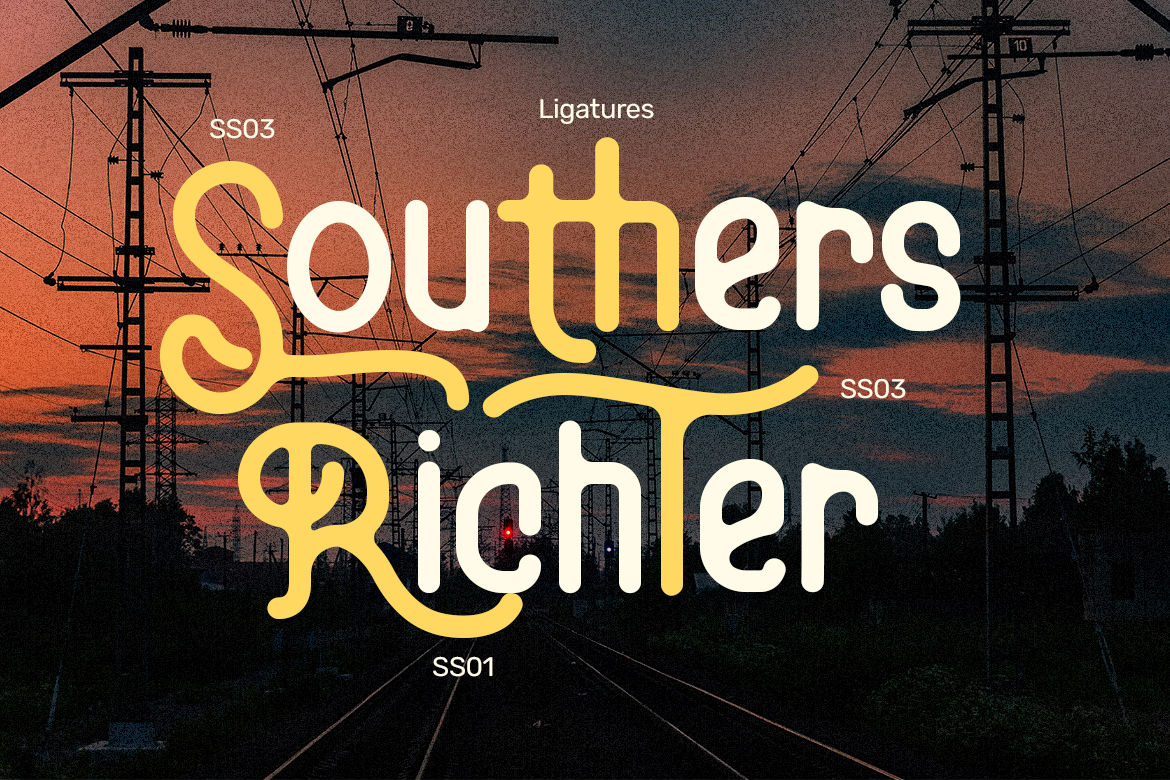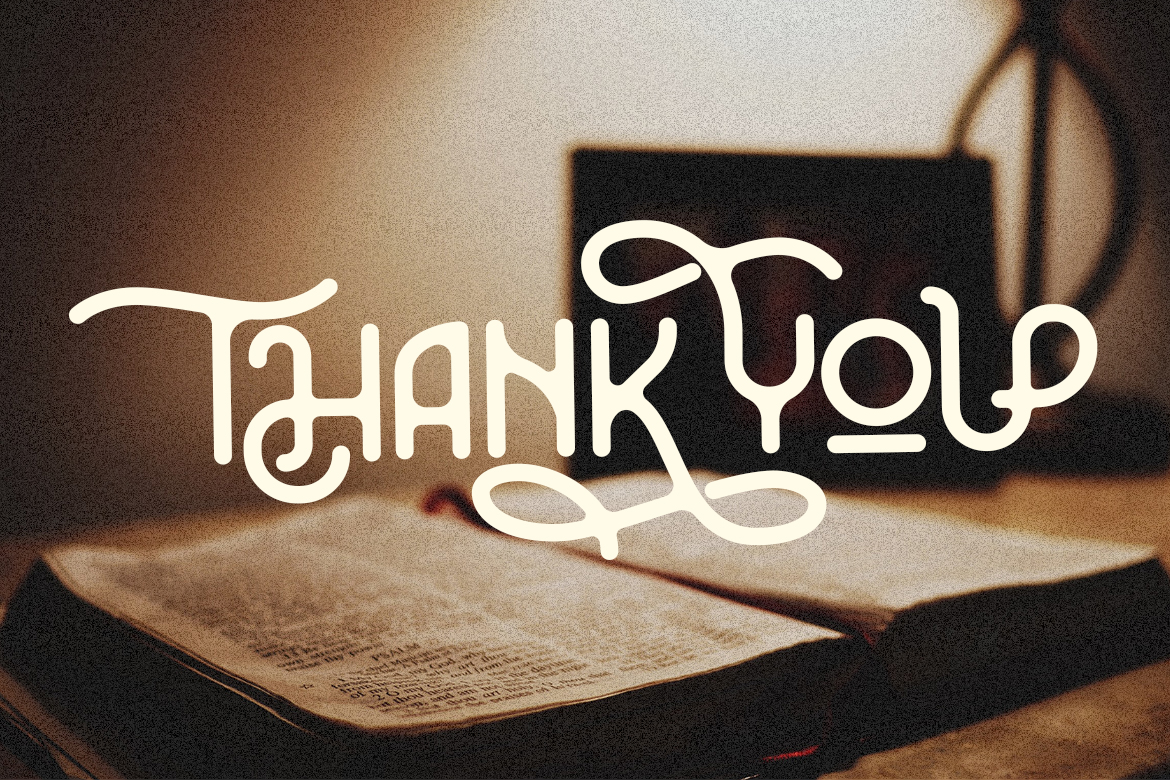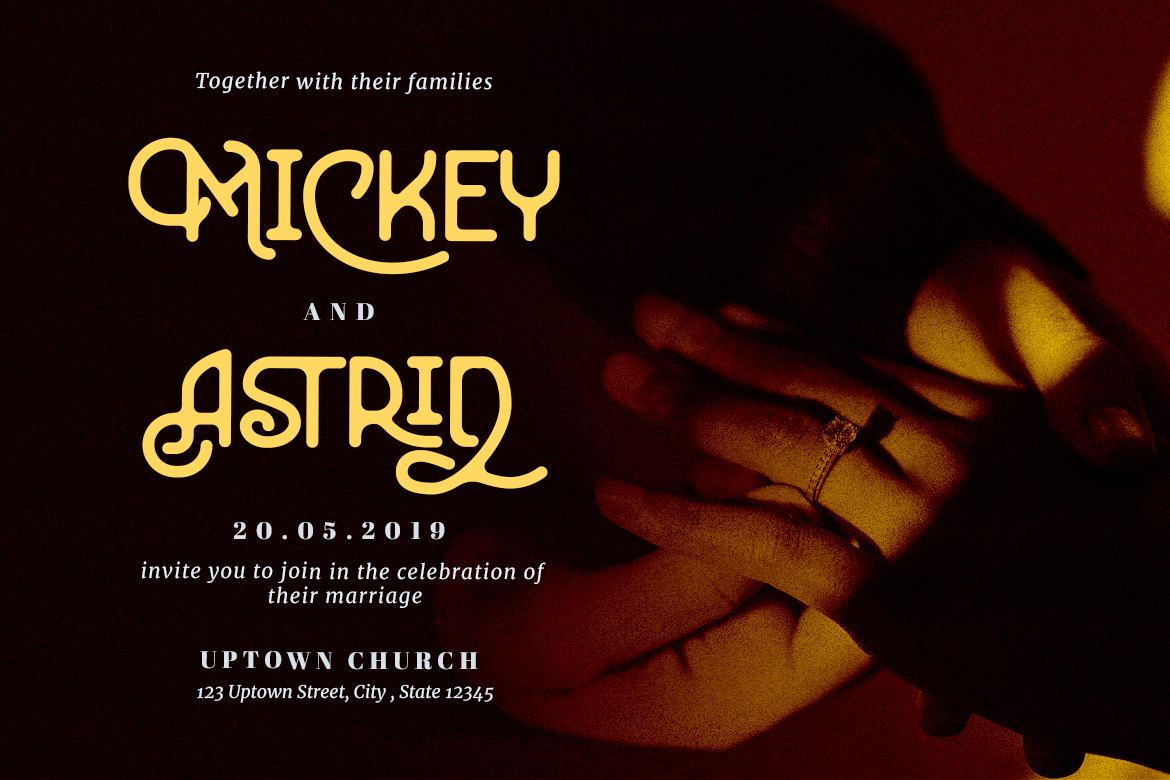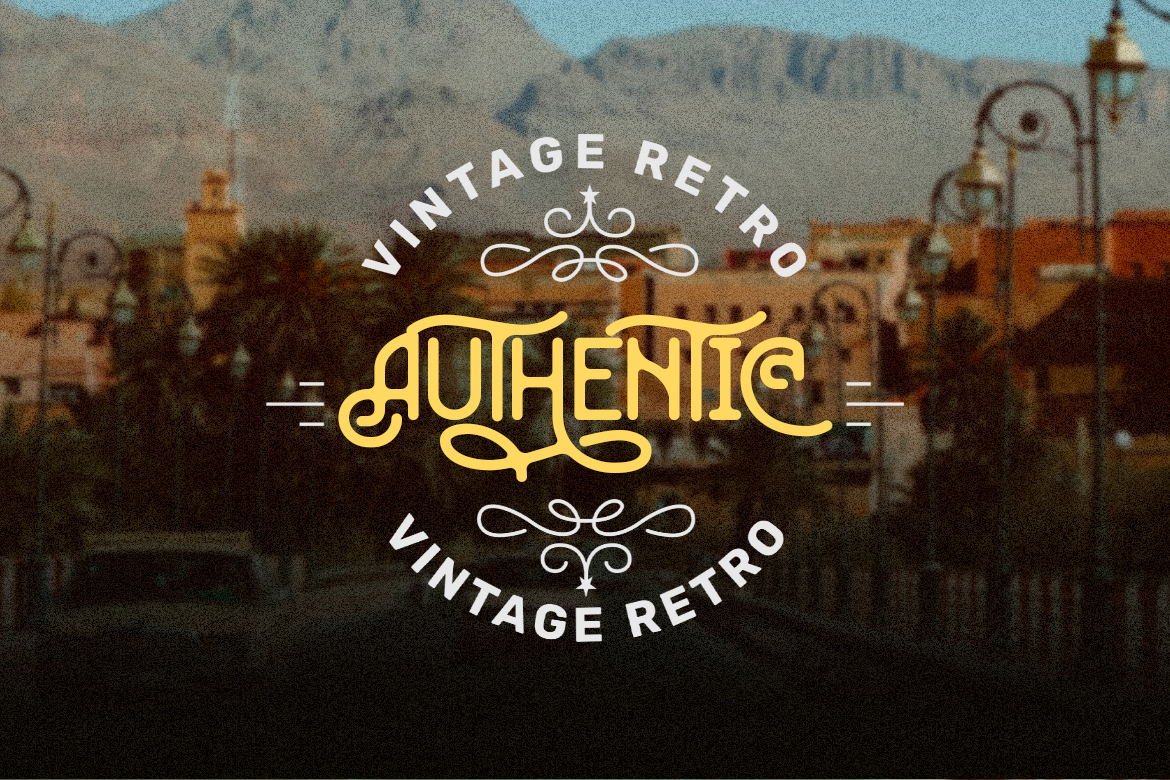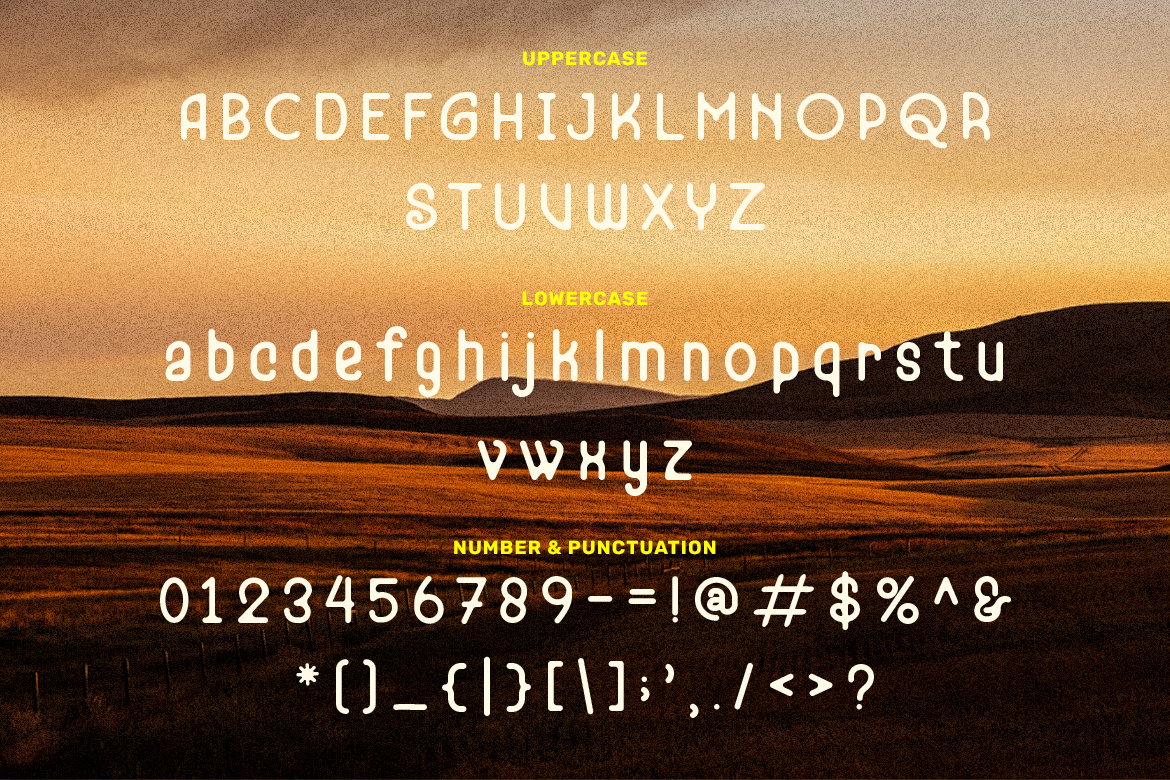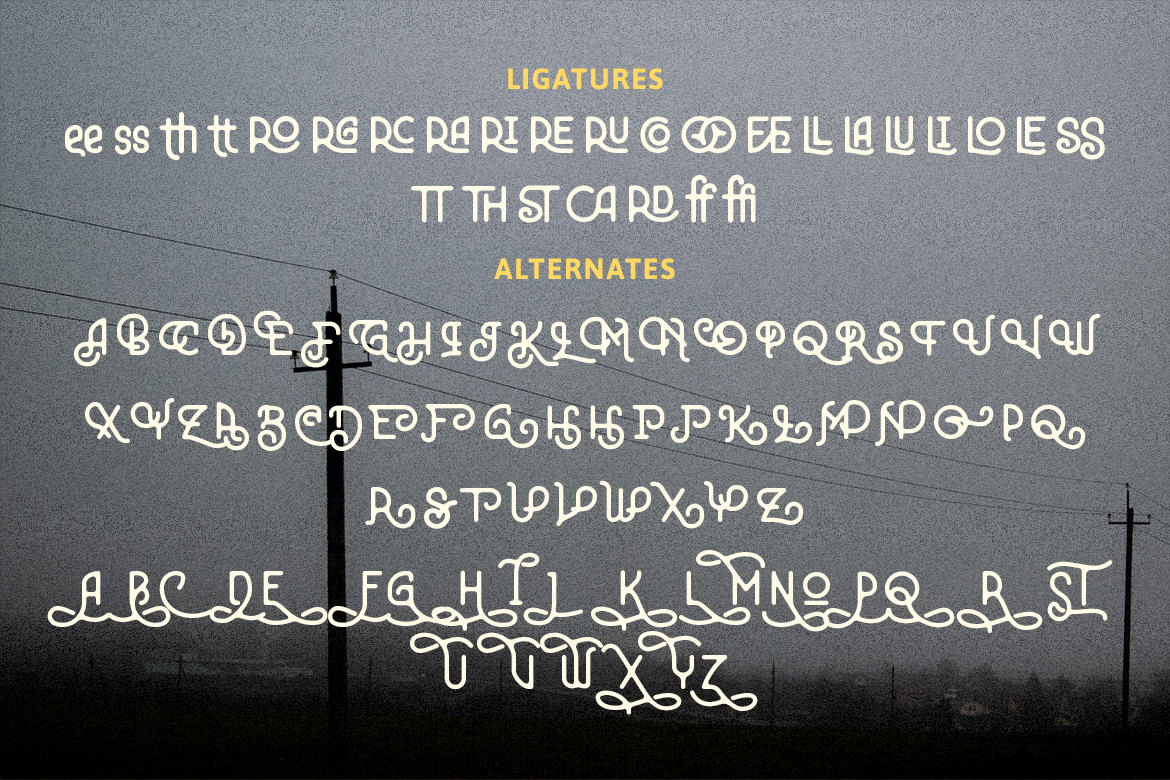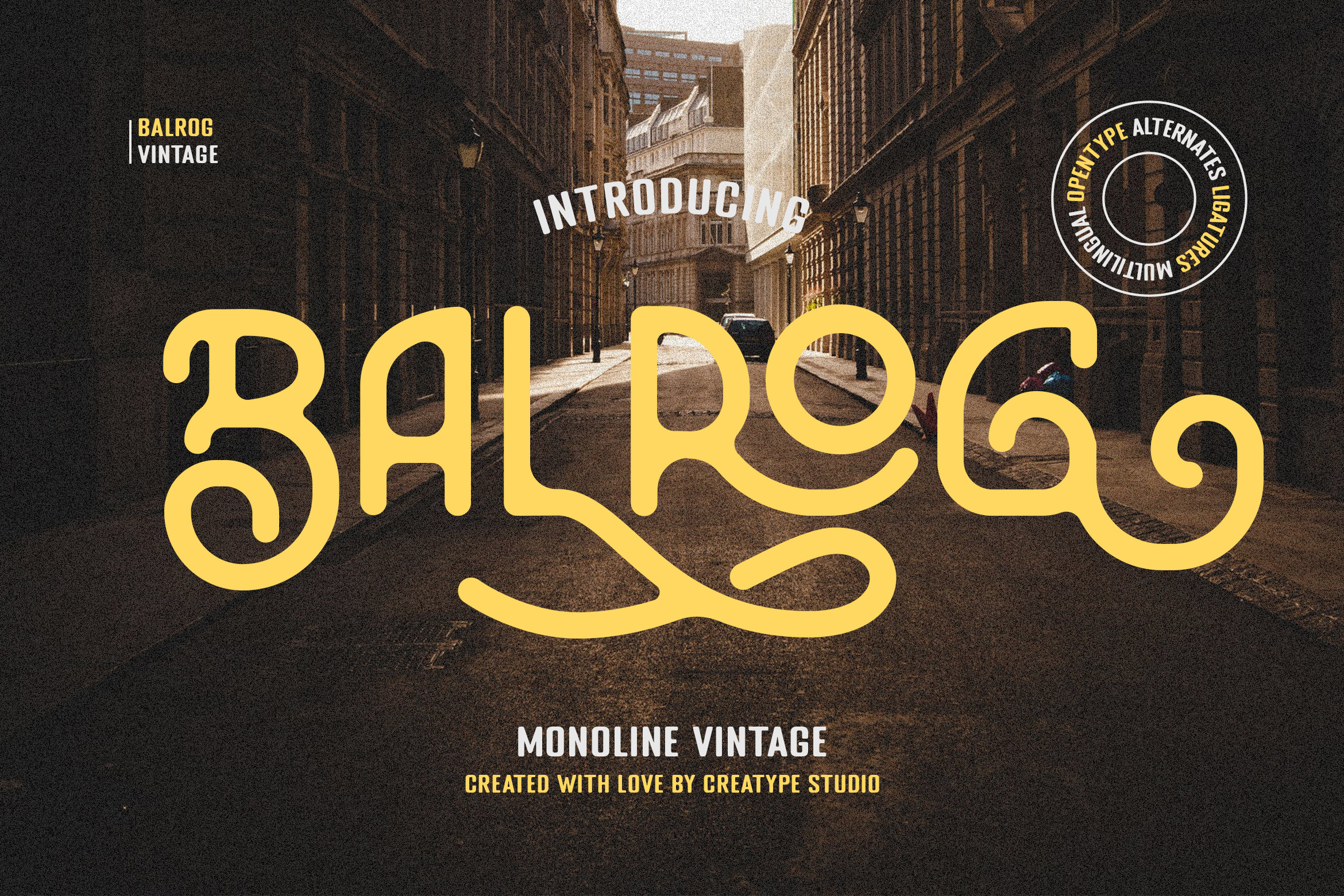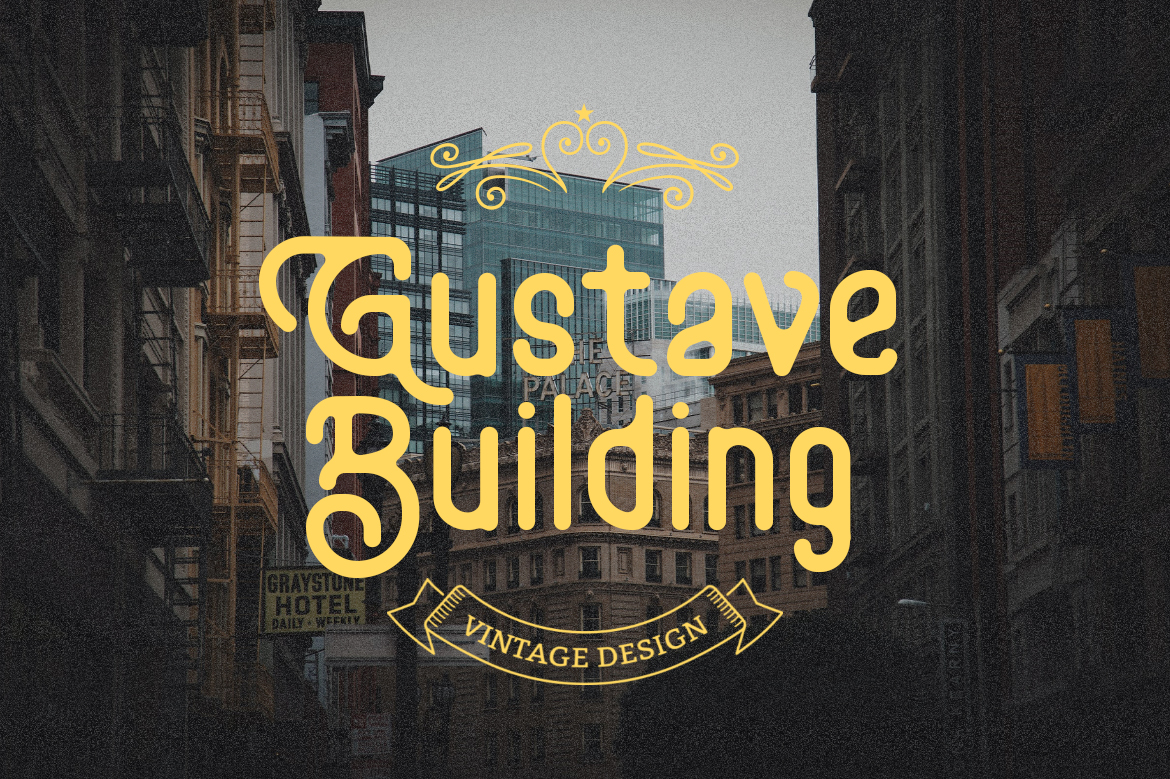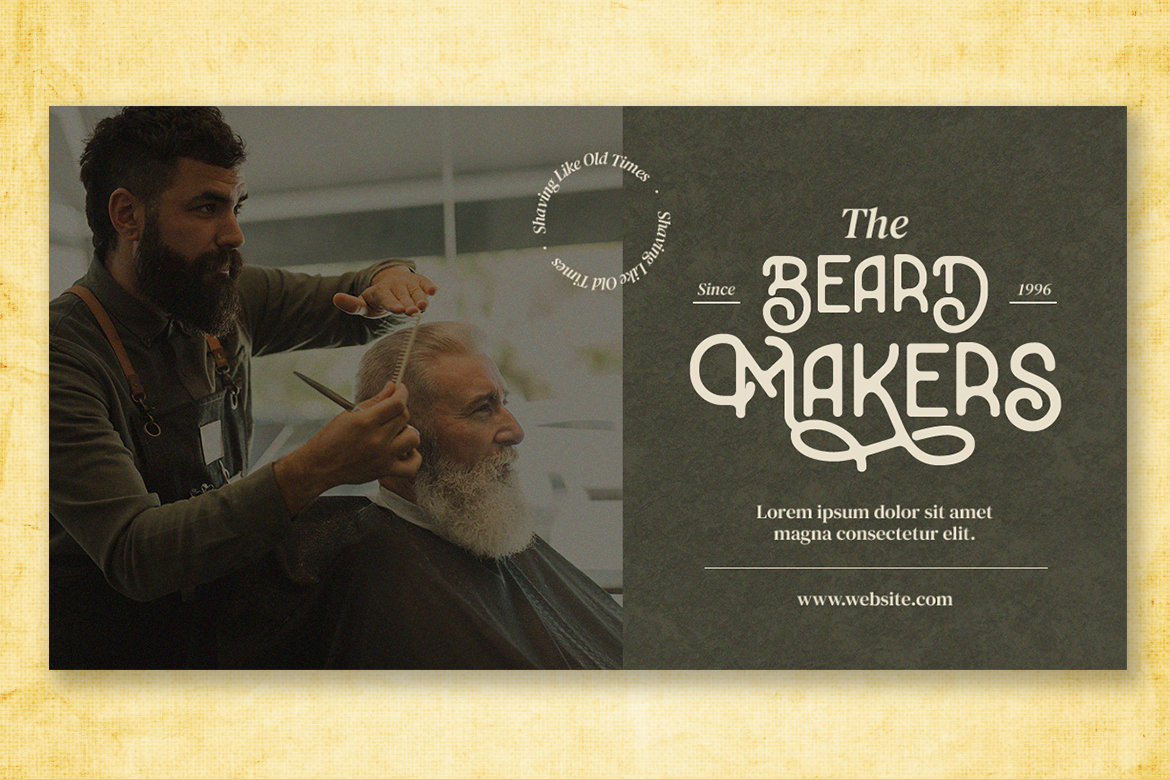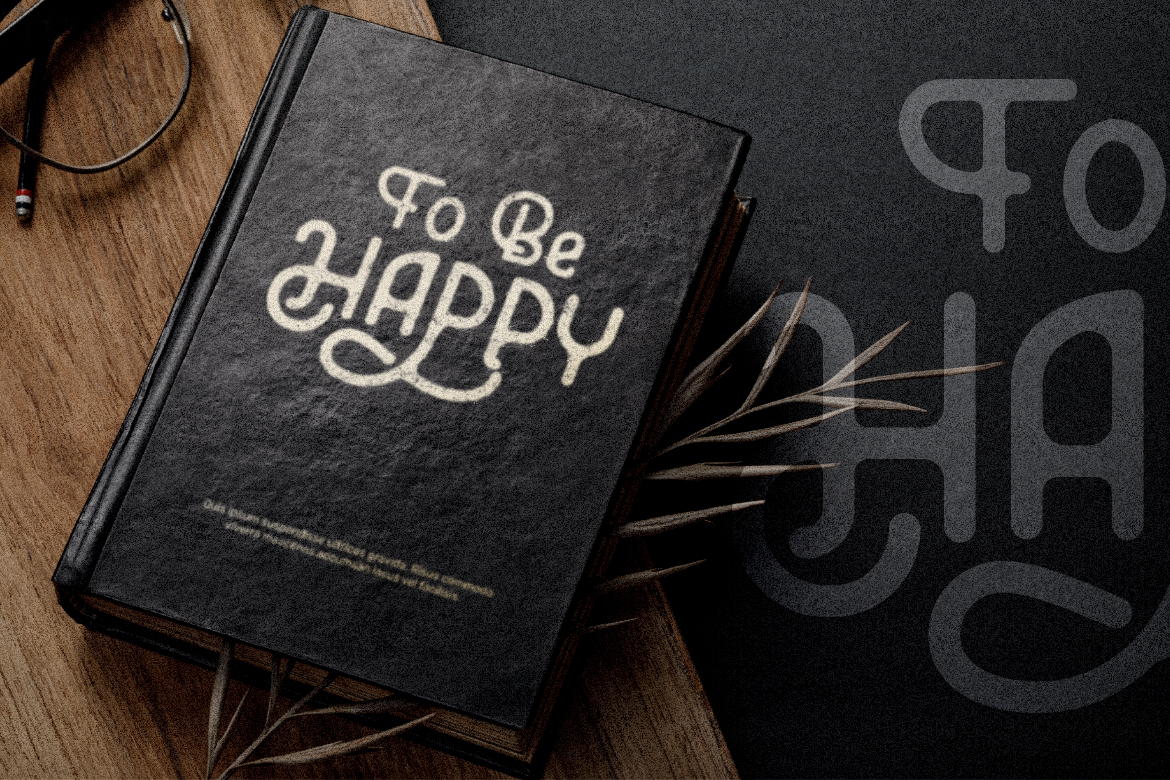
The combination of rounded details and a strong style gives a friendly and vintage vibe. That’s what Balrog is. This typeface that Creatype made is perfect for every design need.
Balrog is perfect for branding projects, logo, wedding designs, social media posts, advertisements, product packaging, product designs, label, photography, watermark, invitation, stationery and any projects that need handwriting taste.
• Ton of glyphs
• Ligature & Alternate
Balrog Vintage Monoline